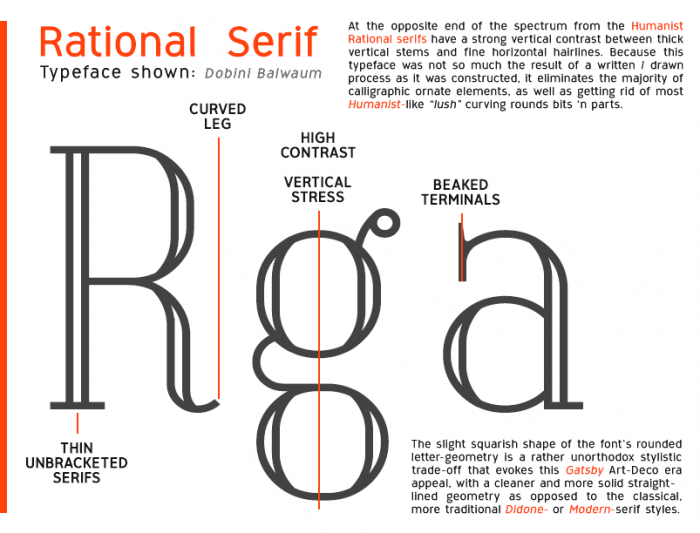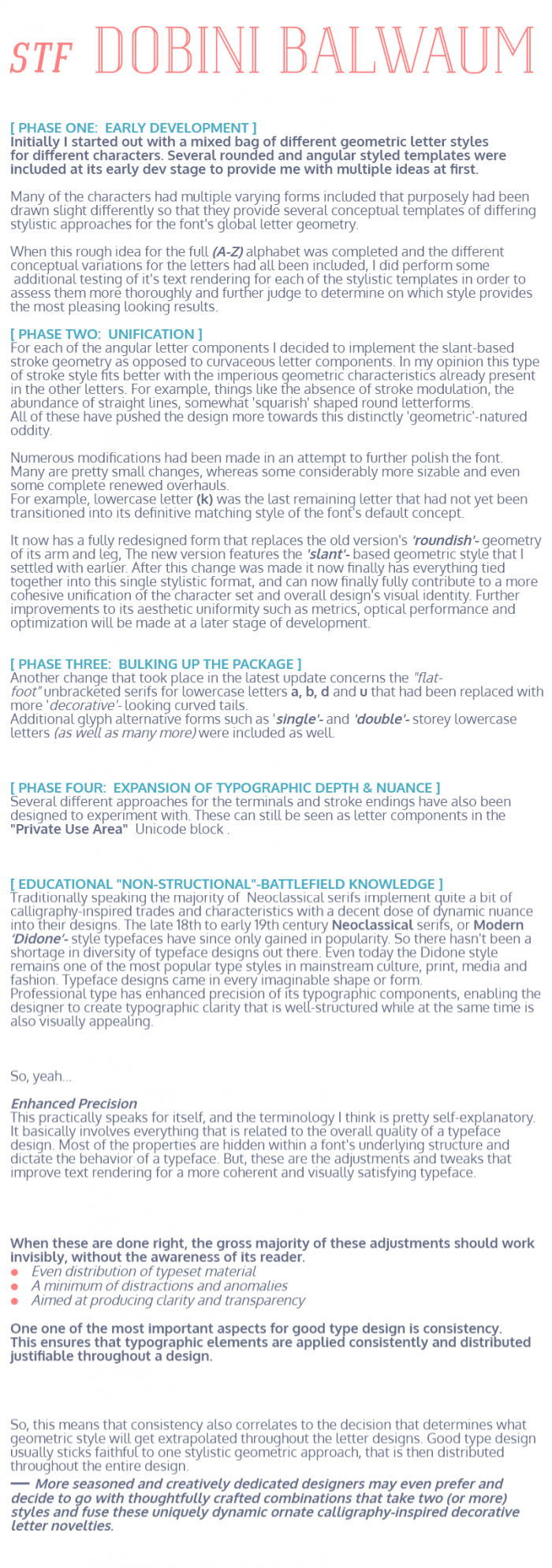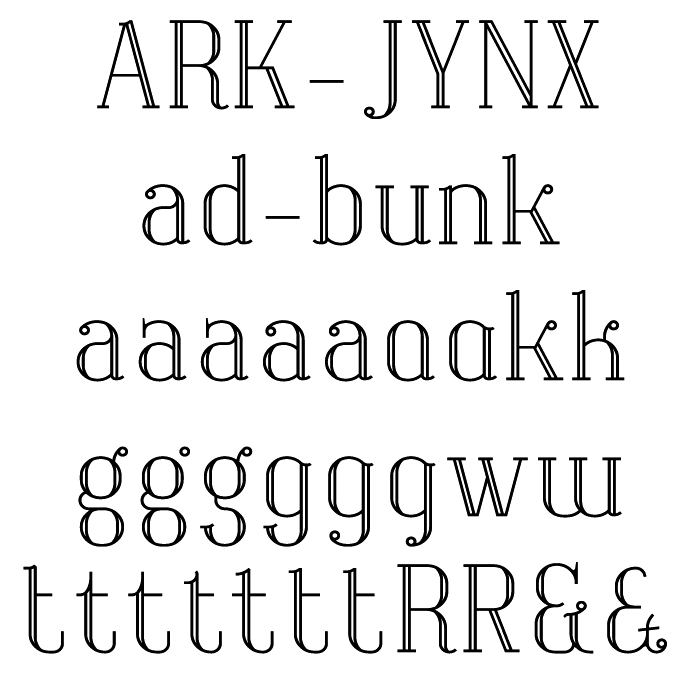
• DOBINI BALWAUM (Inline) — Didone-style 18th century modern serif
Dobini Balwaum is a Didone, or modern, serif typefaces inspired by the works of Bodoni, Didot and Walbaum.
This font had been in the making for quite a long time as I ren into several design difficulties along the way. Most challenging parameter was the inline width. By default the width for the inline was set at 0.125 (or 1/8th) grid units.
Maintaining a constant width for the inline proved to be next to impossible. Therefor it evolves around a 'close' approximation of 0.125 units instead. Stroke weight for the letterform contours also proved to be somewhat of a constraining factor for the overall design concept. As it limits the ability to build complex geometry.
Due to the complexity in brick arrangements the font remains having some minor imperfections that I wasn't able to polish out so far yet, and some may never will..
For now only Basic Latin letters, it remains a WIP
I am not a fan of the uneven digits height, but still this font is great, I would not imagine this was possible with Fontstruct.
Well, the reason I've chosen to make text figures the font's default style was because I tried to remain faithful to the 18th century time period. Most Didone-style typefaces such as 'Didot' and 'Walbaum' have non-lining figures as their default form. Oldstyle "non-lining" figures have lowercase alignment (featuring ascenders & descenders like regular lowercase letters) as opposed to this modern "lining" figures sit on the baseline and align with the uppercase letters.
I know that in more recent times the more popular became lining figures by default. That being said, professional fonts nowadays generally include both, but this only became possible since the arrival of modern digital typesetting systems.
These allowed encoding for both text and lining figures as OpenType alternate characters.
There is an additional set of alternative lining figures located in the "Halfwidth And Fullwidth Forms" Unicode block.
Added some ligatures!
@Dear Sed4: Double Congratulations, for the TP and for the font itself! I really liked this one, you already knew that, but now that I see it finished (or almost, with you there are always improvements) I like it much more! Fine, elegant, wearable... it has all the cards to be a winner! Without taking anything away from everything said above, I would also like to present for your consideration some small suggestions about the J, the y and the number 2 (and perhaps some other less intense ones that may come later). Great work, I say it once again, and with many possibilities IMHO.
@elmoyenique: As you might have noticed earlier, the exact three glyphs that you just proposed did already had several slight modified forms included in the font. But even with all the variations present I still couldn't fully get satisfied and settle with one of the results for the designated glyphs.
So yours came as an absolute blessing, and is greatly appreciated my good old brother-in-bricks. I attempted to rebuild and incorporate your recommendations  into the font.
@elmoyenique: These are my additions towards your proposal.
the font for "cap height" "ascent" "x-height" "baseline" and "decent" in the picture was the font you created but nice font 100/10
this looks like didone but yeah